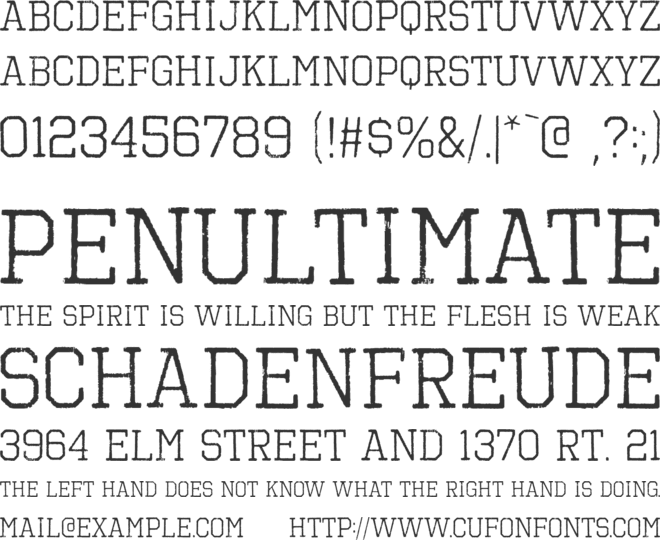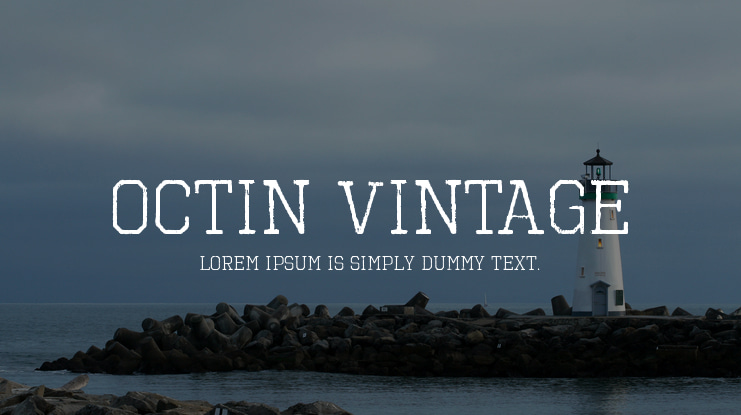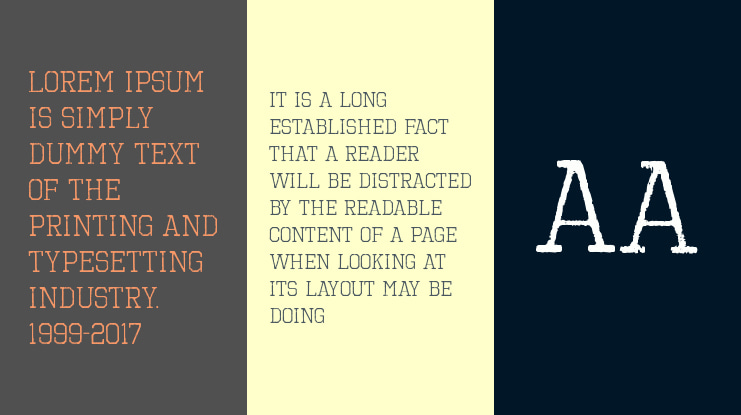
Octin Vintage Font
Octin is a set of tough tough headliners. Check out all the Octin families: Octin Vintage, Octin College, Octin Sports, Octin Stencil, Octin Prison & Octin Spraypaint.